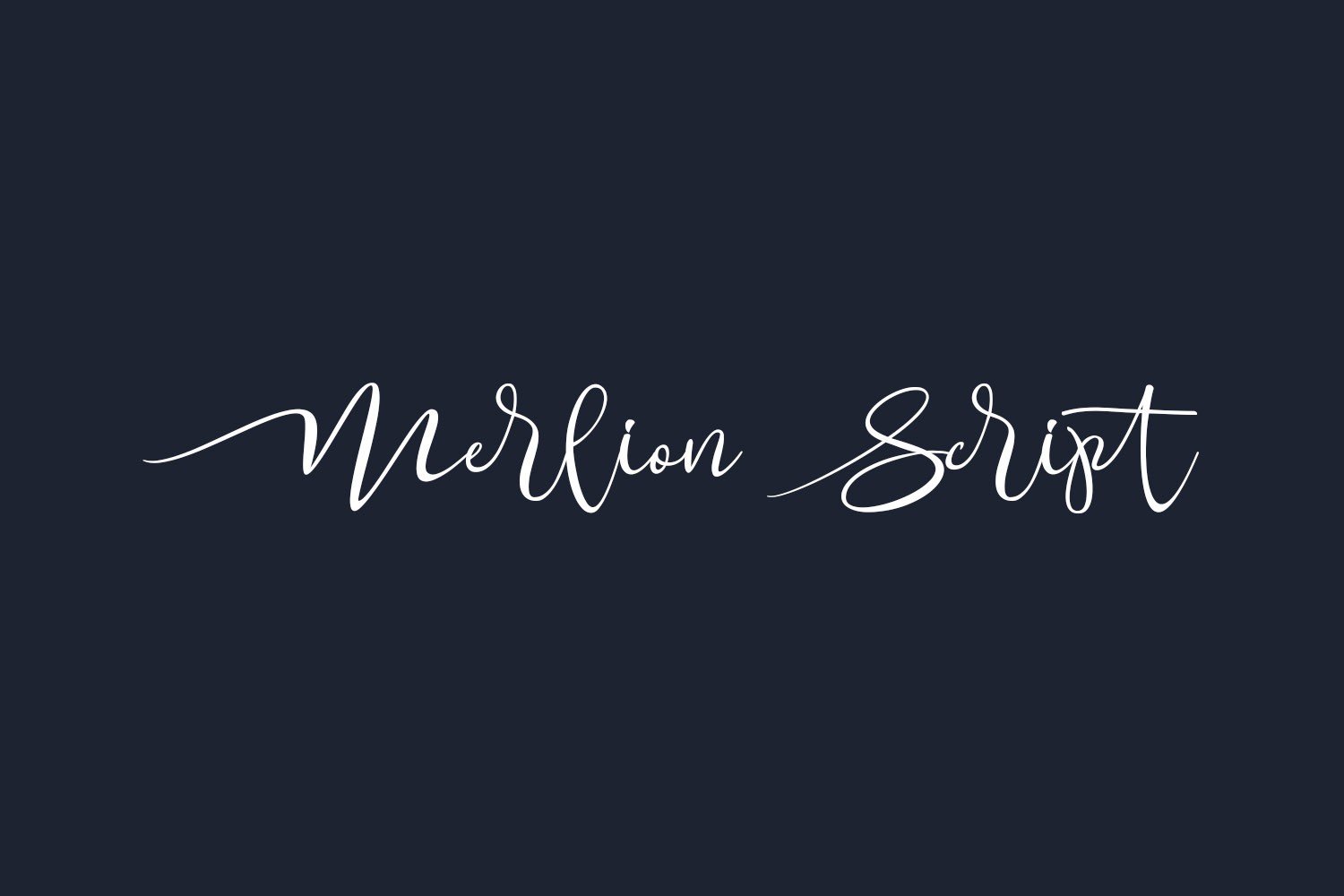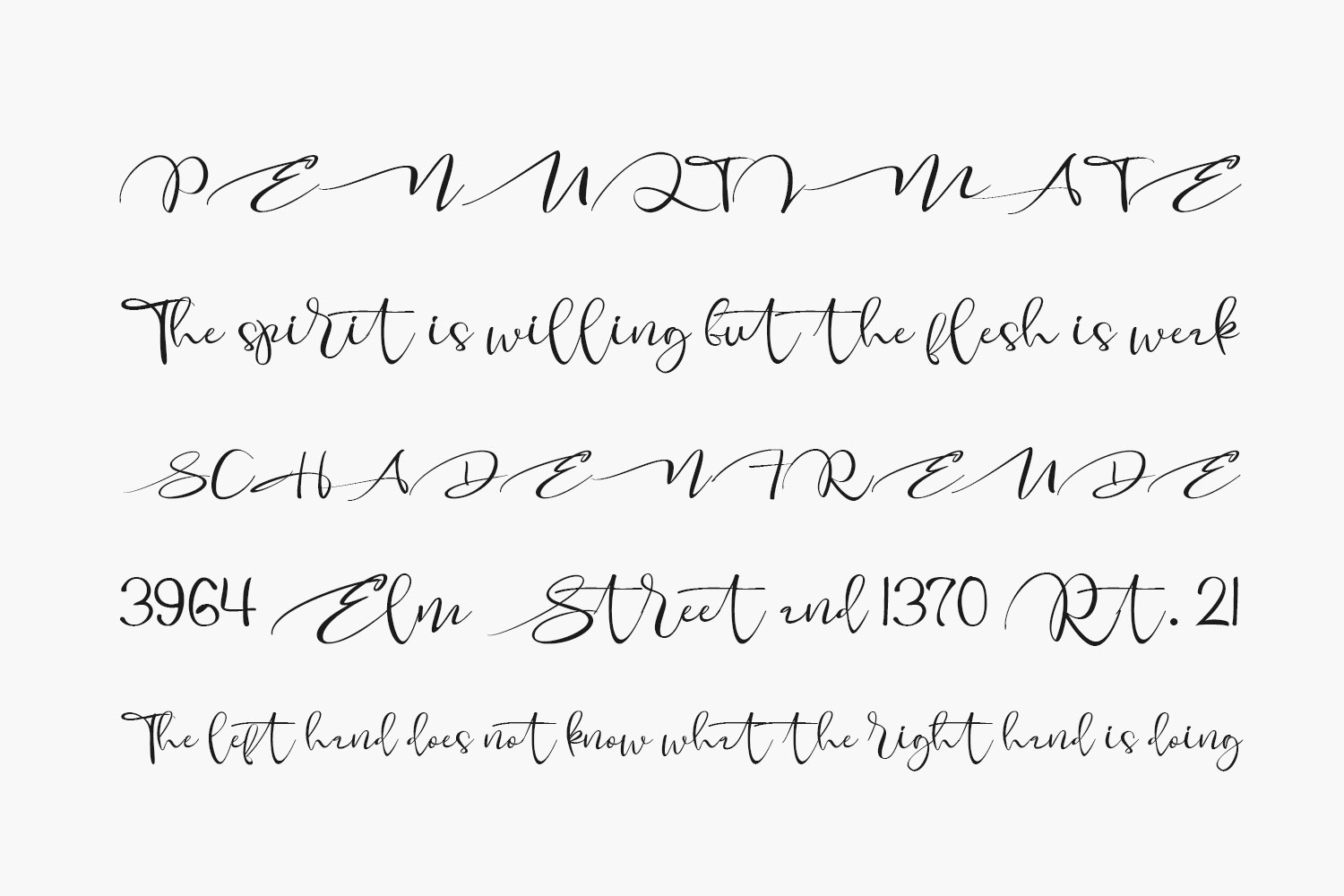
Merlion Script Free Font is an elegant script font with a contemporary atmosphere and impeccable form, inspired by timeless classic calligraphy. Not too thin and not too thick, balanced and varied, this font was designed to enhance the beauty of your projects. Merlion Script Free Font was designed by Creativework69 Studio and is free for personal use only. Please purchase the full version for commercial use.